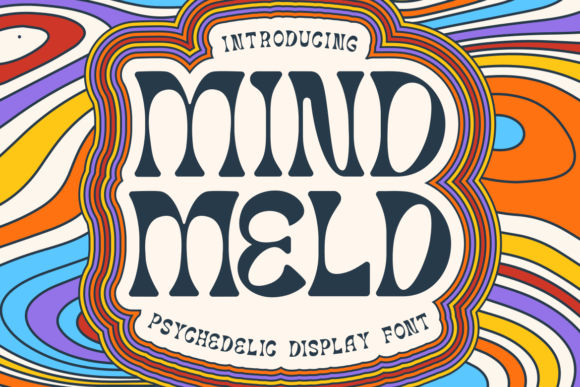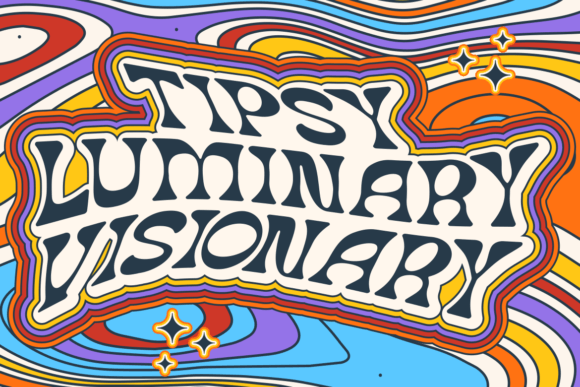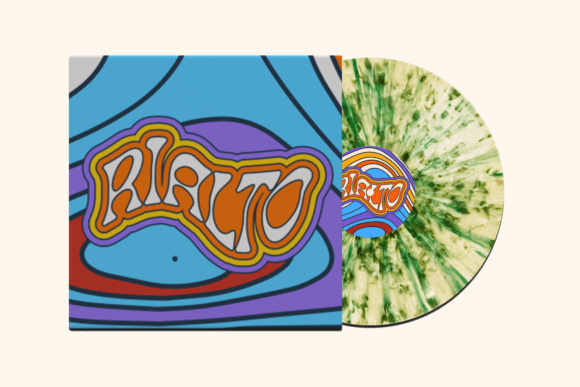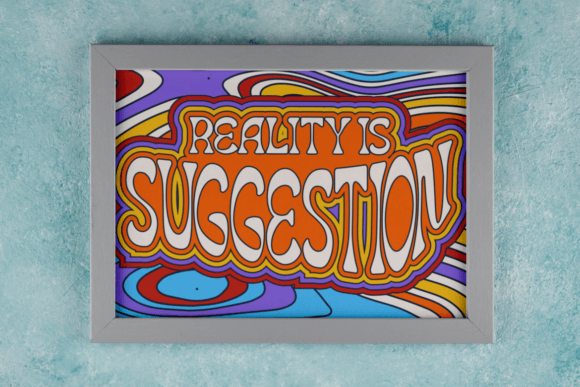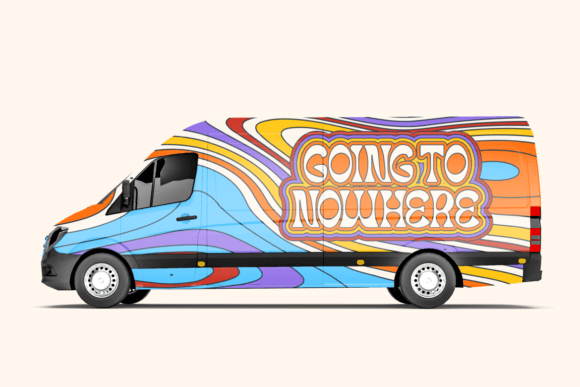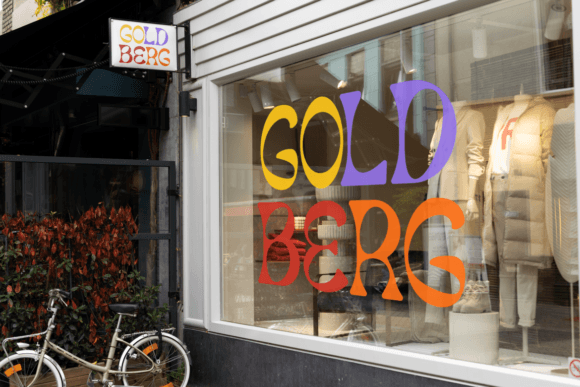
Introduction to Mind Meld Font
Have you ever been working on a creative project, pouring your heart and soul into it, only to feel like something’s missing? You’ve got the perfect concept, but the design just isn’t quite coming together? That’s where the right font can make all the difference. And if you’re looking for a font that’s truly out of this world, you’re in luck. Introducing the Mind Meld Font, a psychedelic display font that’s sure to transport your design to a whole new level.
As a designer, you know that the right font can elevate your work and make it truly stand out. That’s why the Mind Meld Font is an invaluable resource for anyone looking to add a touch of retro flair to their design. With its bold and fluid lines, this font is perfect for capturing the essence of vintage design, while still feeling fresh and modern. Whether you’re working on a branding project, a packaging design, or even a children’s book, the Mind Meld Font is sure to bring your text to life.
Key Features of Mind Meld Font
- High-quality, unique design for creative projects, perfect for designers seeking a distinctive look.
- Unique characteristics, such as intricate details and bold lines, make it ideal for use in creative projects, including logos, branding materials, and typography-based art.
Honest Review: Mind Meld Font
I recently came across the Mind Meld Font, a unique design resource that caught my attention. As a designer, I’m always on the lookout for high-quality fonts that can elevate my creative projects. In this review, I’ll share my honest thoughts on this font.
- ✨ Unique and modern design that can add a touch of sophistication to any project
- ✨ High-quality design that looks great on both light and dark backgrounds
- ⚠️ Limited character set, which may not be ideal for projects requiring extensive text
- ⚠️ Not suitable for use on low-resolution screens, as it may appear pixelated
Tips for Getting the Most Out of Mind Meld Font
Experiment with different font sizes, colors, and combinations to achieve the desired look for your creative project.
The Mind Meld Font is ideal for creative projects that require a unique and high-quality font. It’s perfect for branding, marketing materials, and visual content creation.